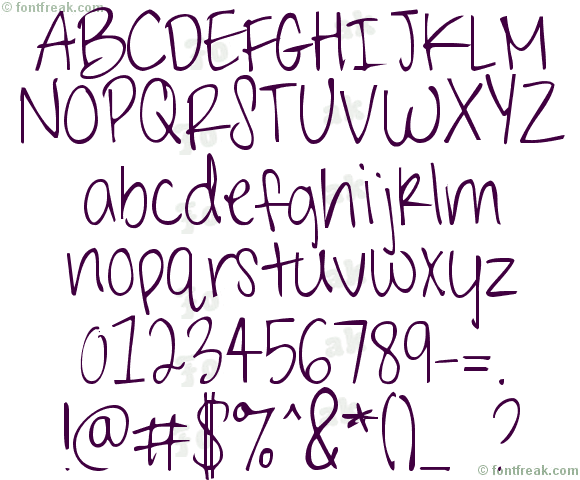
Shark in the Water
About Shark in the Water
The "Shark in the Water" font, created by Kimberly Geswein, is a delightful handwritten typeface that captures a playful yet elegant essence. With its casual strokes and whimsical characteristics, this font offers a unique charm that resonates well in various creative projects. The visual style features a medium stroke weight with a light contrast, which contributes to its approachable aesthetic. The letters exhibit a slightly irregular baseline and varied spacing, enhancing the handwritten feel that makes it stand out.
This font excels in numerous applications. It is particularly well-suited for wedding invitations, where its charming appeal can add a personal touch to the event. Additionally, "Shark in the Water" works wonderfully for children’s book covers, where the playful design can attract young readers. Restaurant menus can also benefit from its inviting style, making dishes seem more appealing. Furthermore, this typeface is ideal for social media graphics, particularly for content creators looking to add a friendly tone to their posts. Small business owners can utilize this font in branding materials to convey a sense of warmth and creativity.
Targeted towards graphic designers, content creators, and small business owners, this font allows for a wide range of creative expressions. Its distinctive and engaging design makes it a versatile choice for anyone looking to add a touch of personality to their work.
What sets the "Shark in the Water" font apart is its blend of whimsy and elegance, making it perfect for both casual and formal contexts. Its availability as a freeware option means that users can easily access the "Shark in the Water font free download," allowing for endless creative possibilities without financial constraints. This font is not just a typeface; it’s an invitation to express creativity with flair.